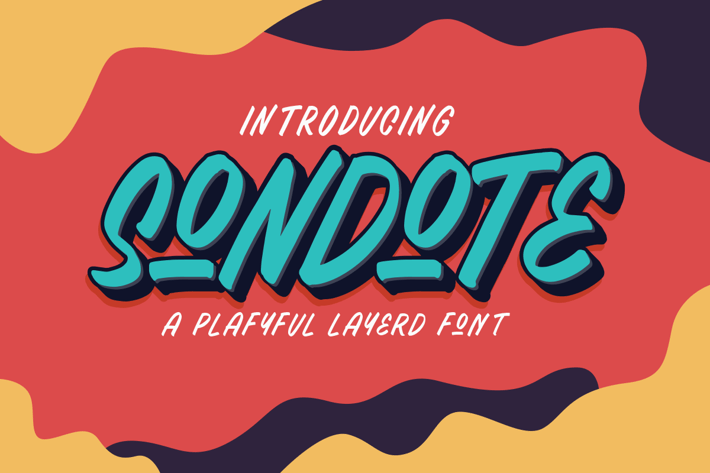
Sondote Playful Extrude font
MartypeCo
SONDOTE is a family sign painting font designed with carefully handcrafted. Also suitable for branding, T-shirt, Wedding Invitation, Classic Design, Logotype, and any project. With two style make you easier to design everythings.
Sondote
Sondote Extrude